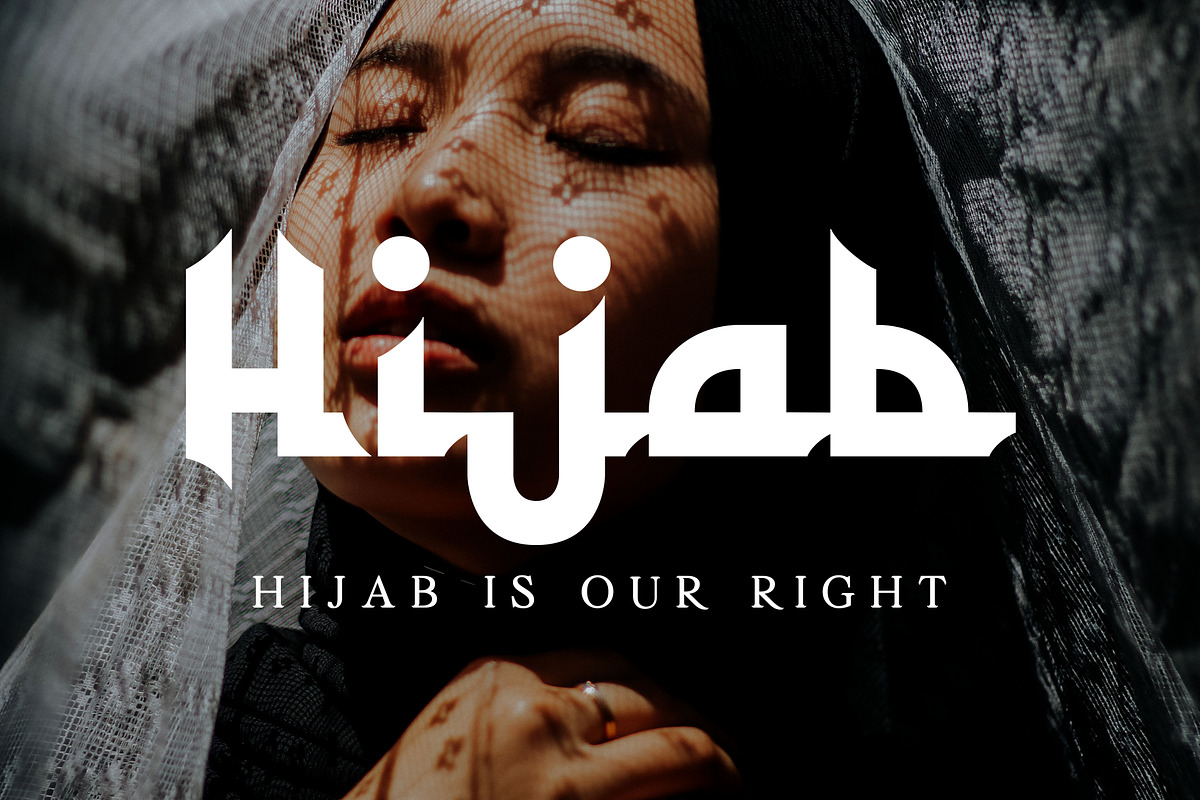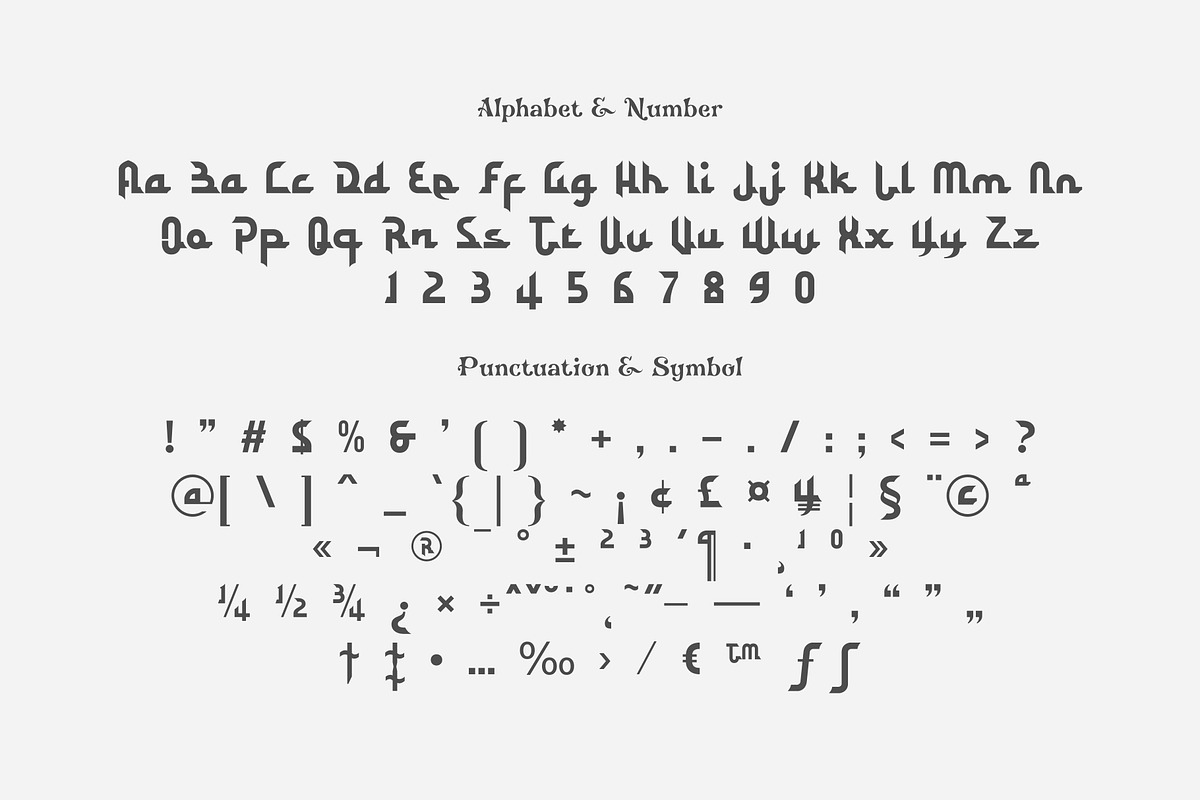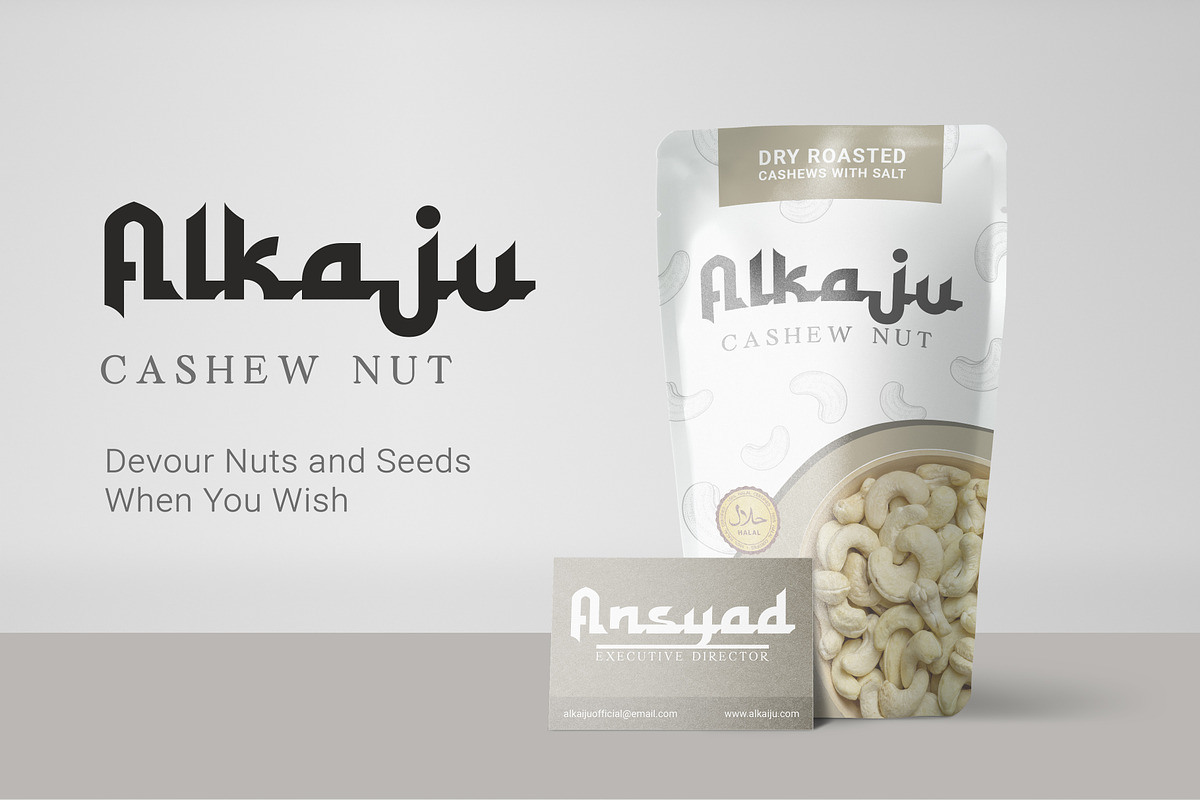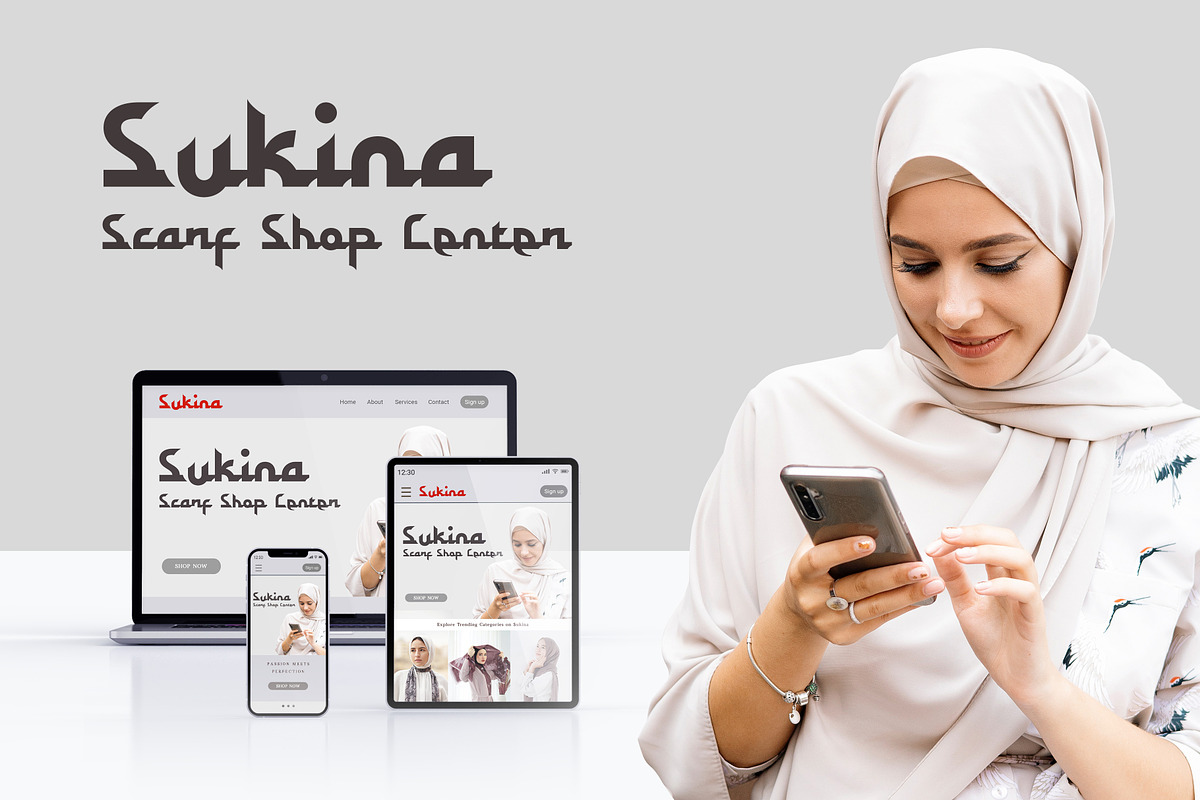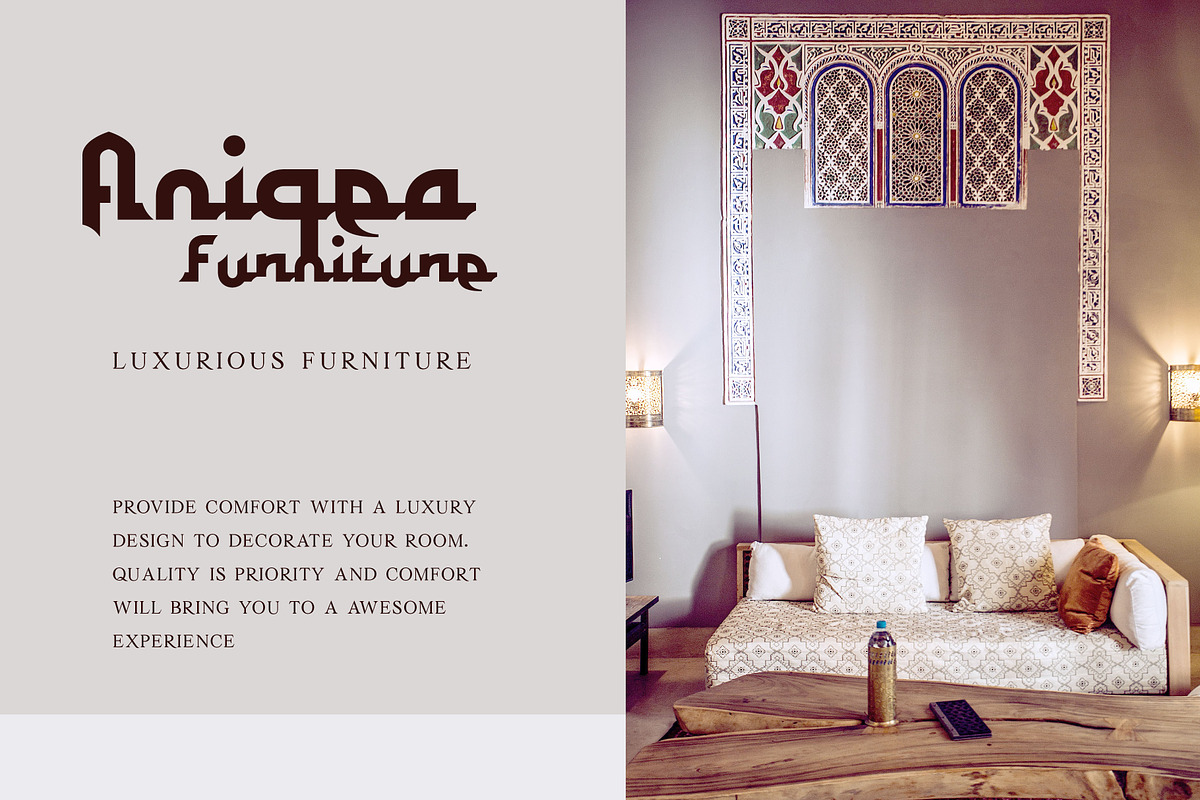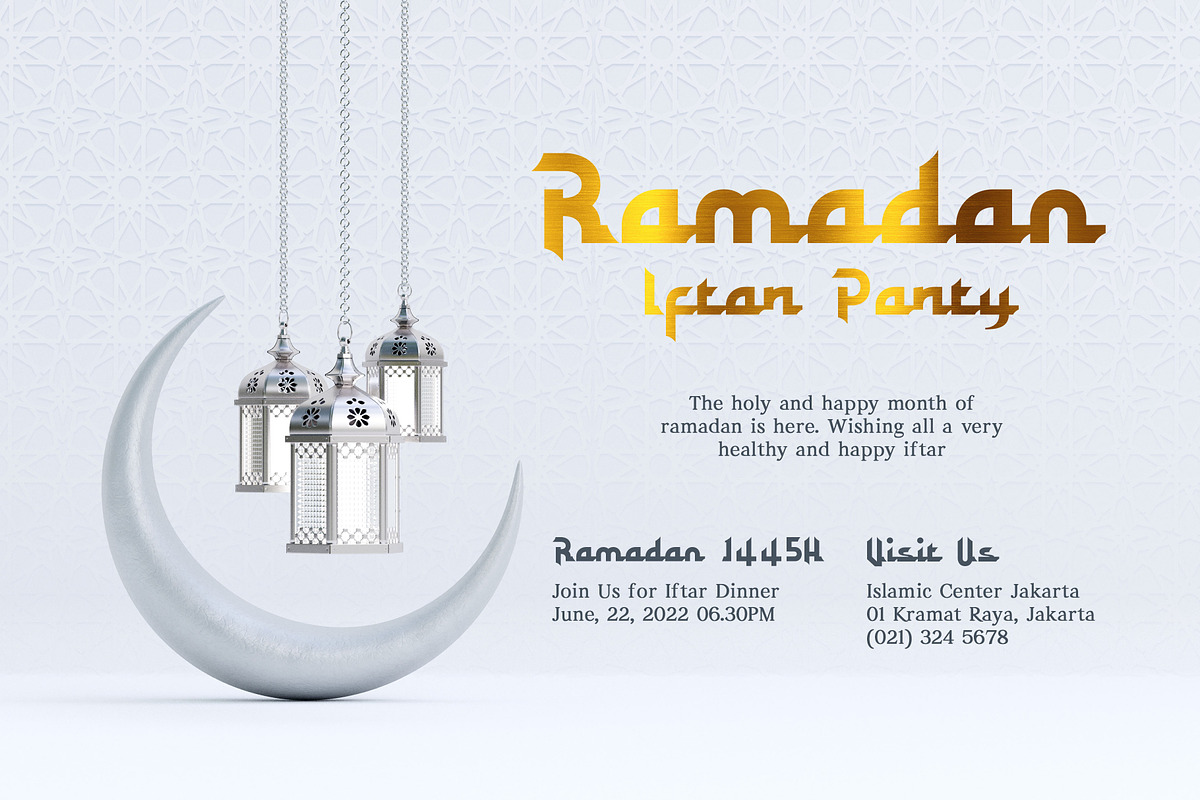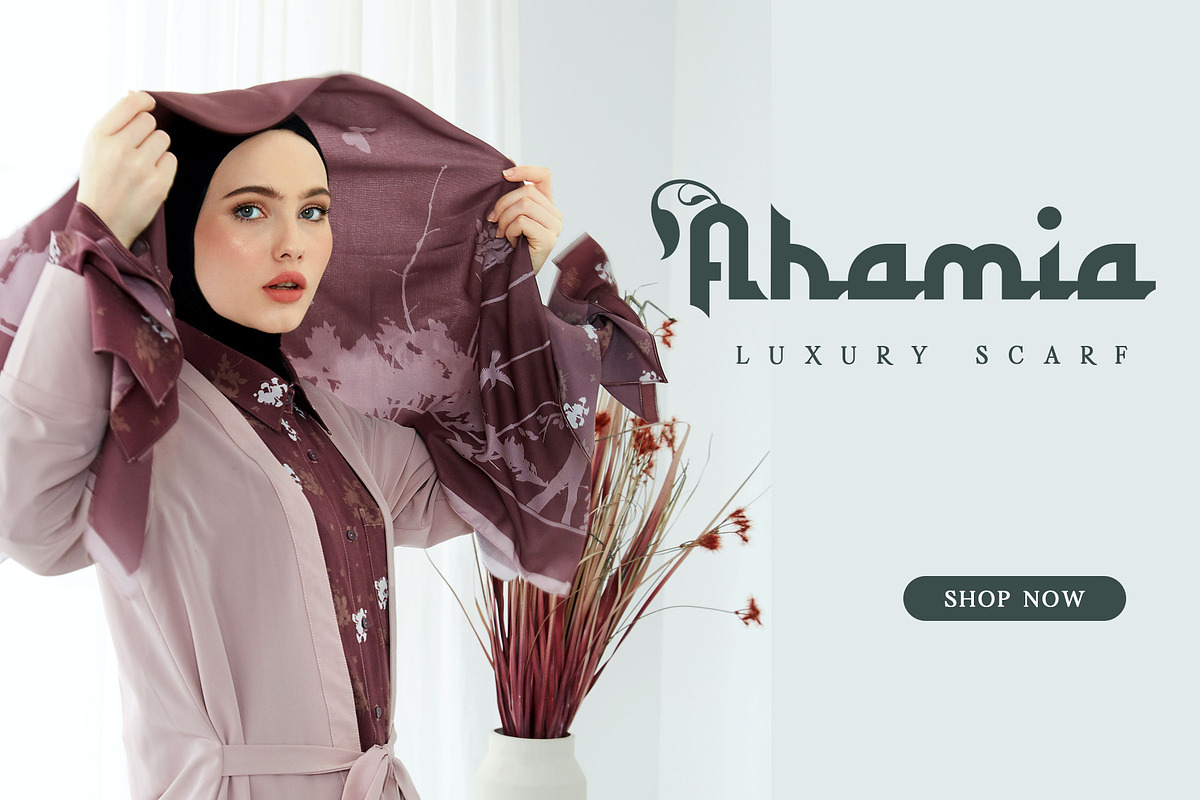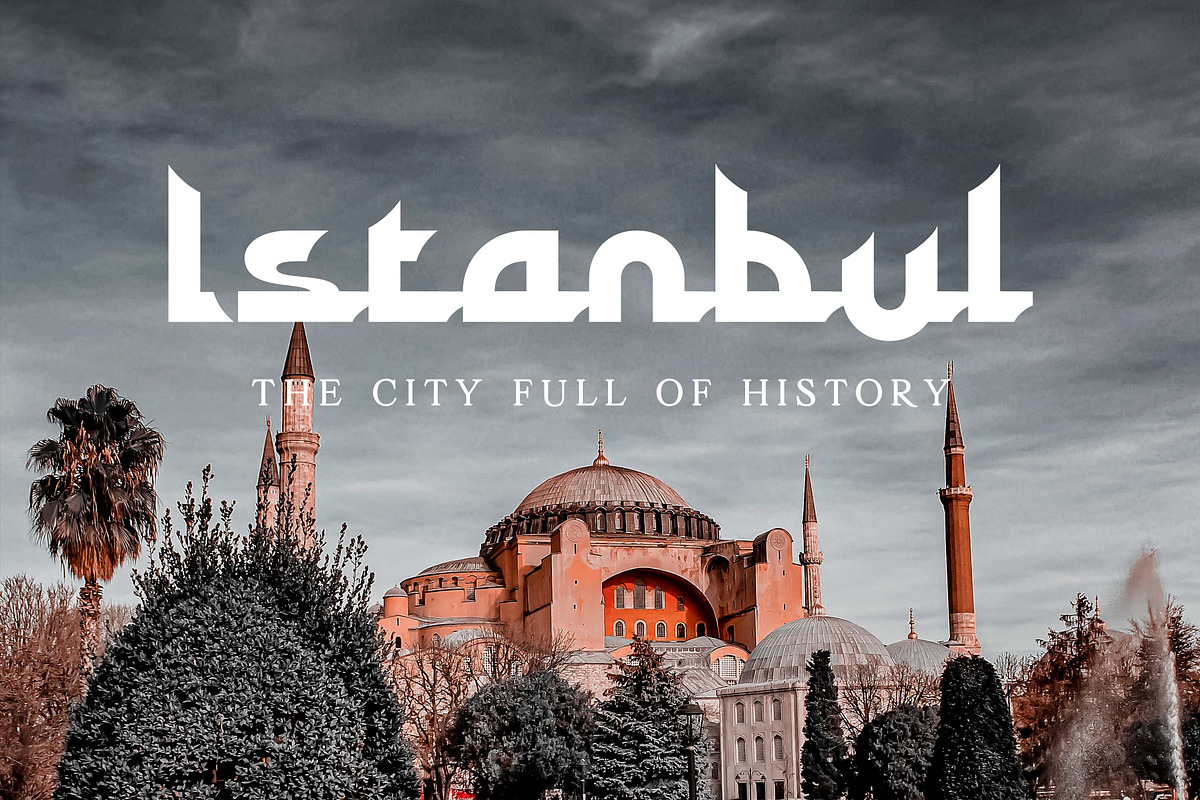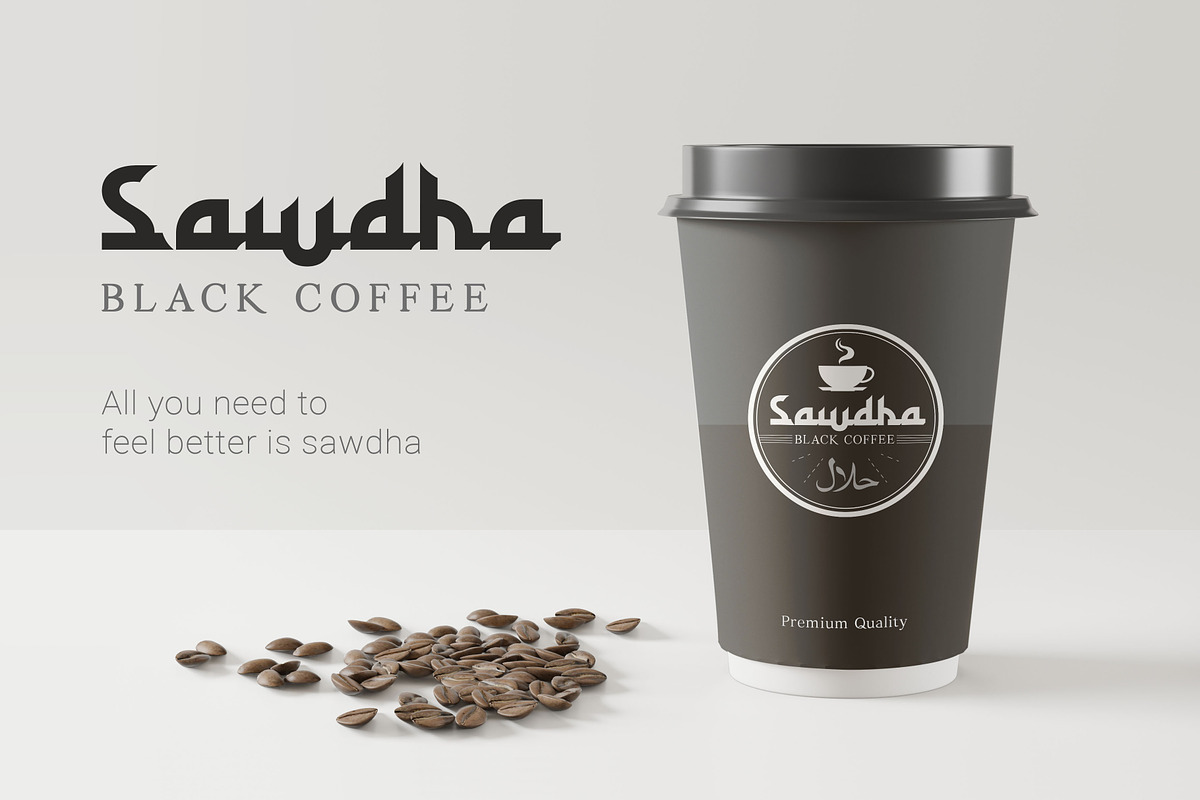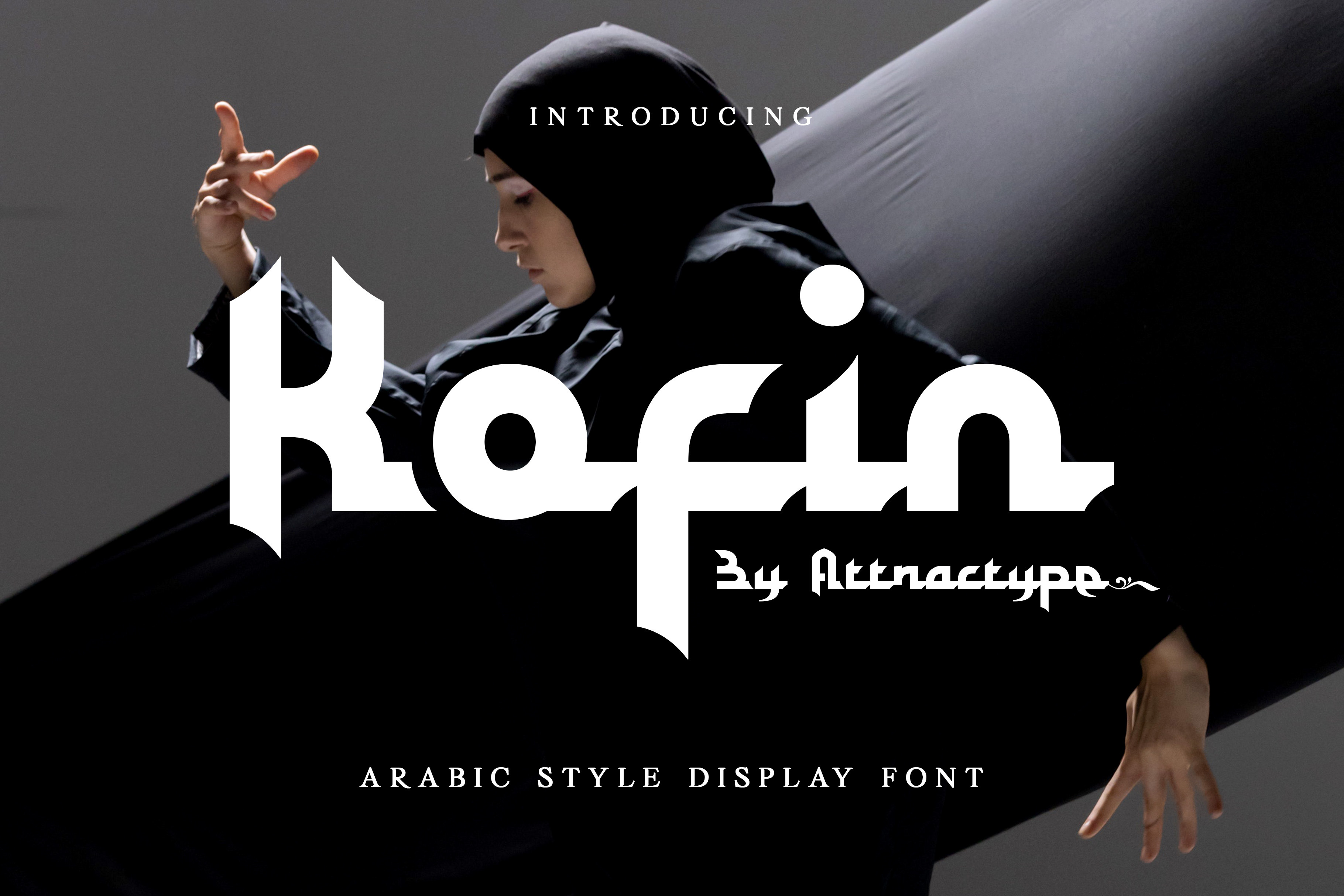
Kofin - Arabic Style Display Font
Kofin is arabic style display font that looks stylish, elegant and futuristic. Kofin will perfect for your latest project.
Kofin is arabic style font that perfect for any projects like logo branding, photography, watermarks, invitations, visiting cards, advertisements, product designs, stationery, wedding designs, labels, product packaging, special events and much more
- Stylistic alternate